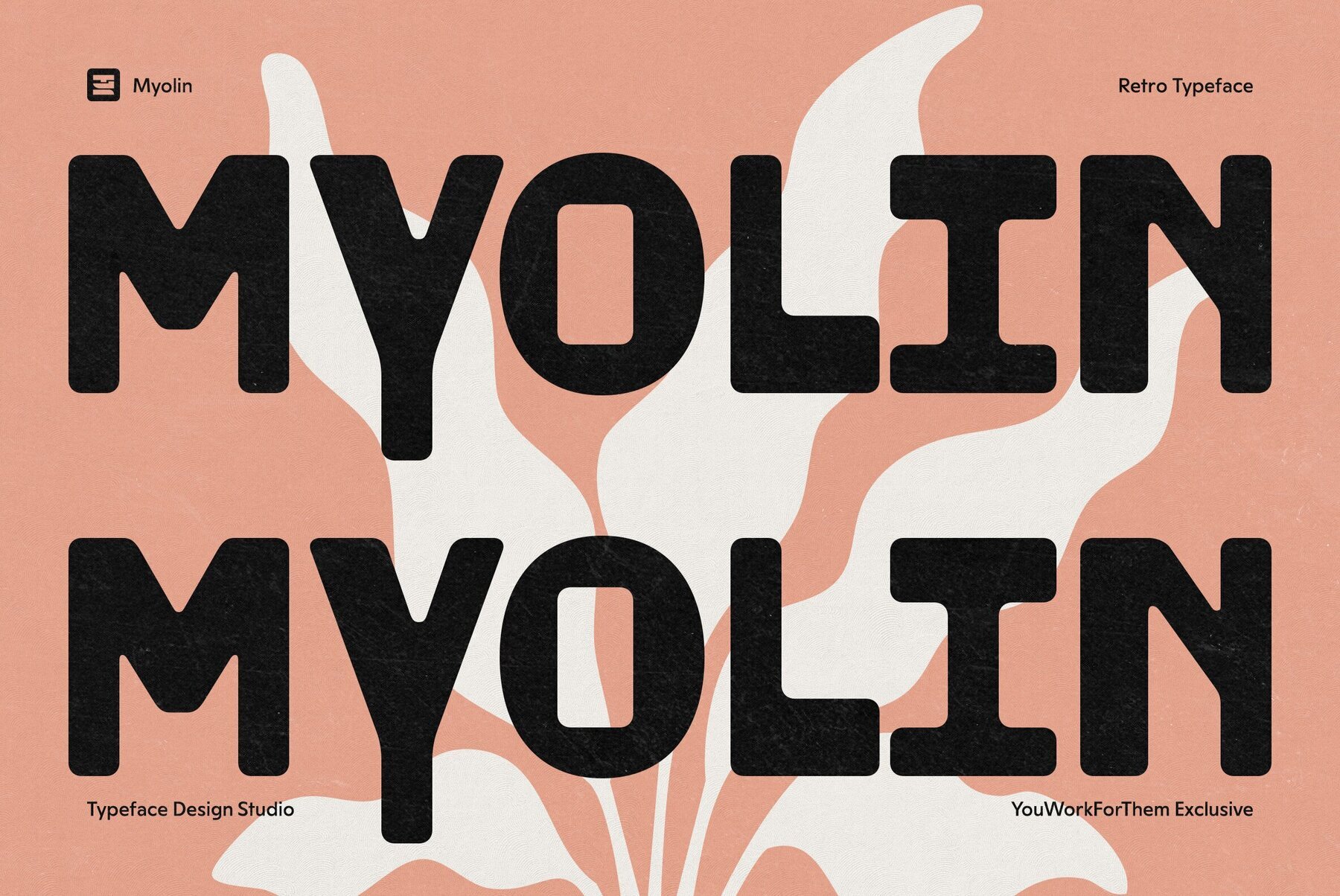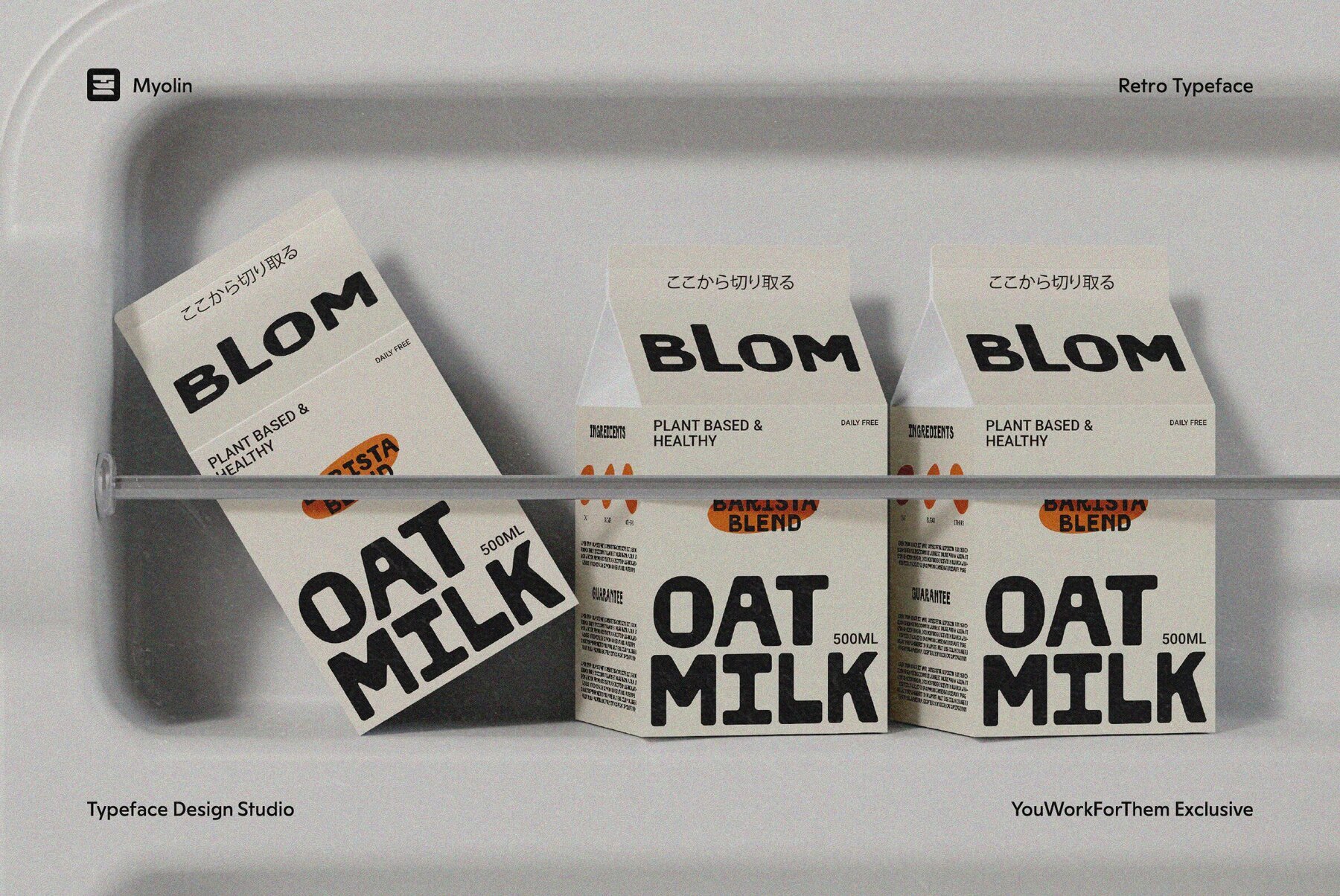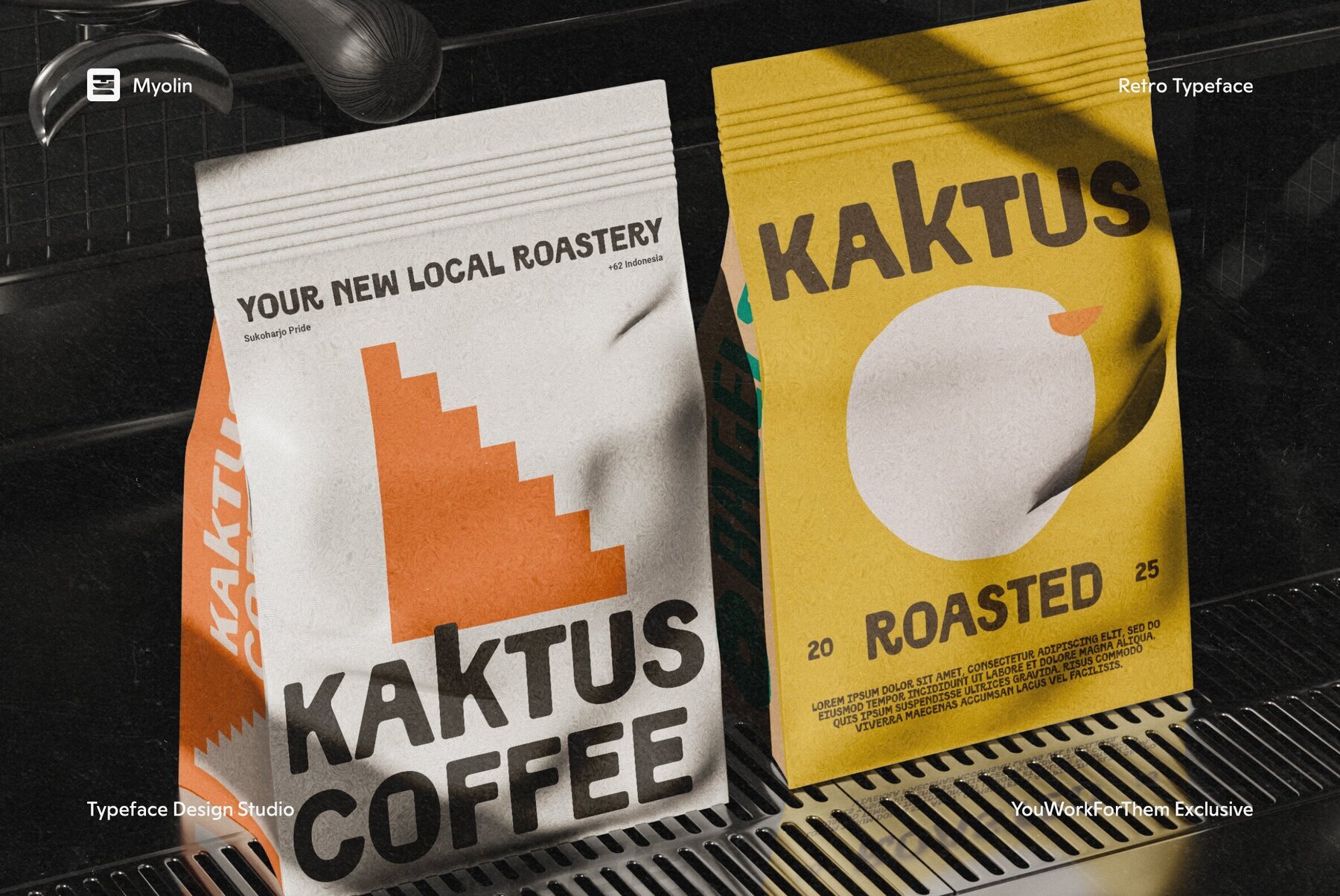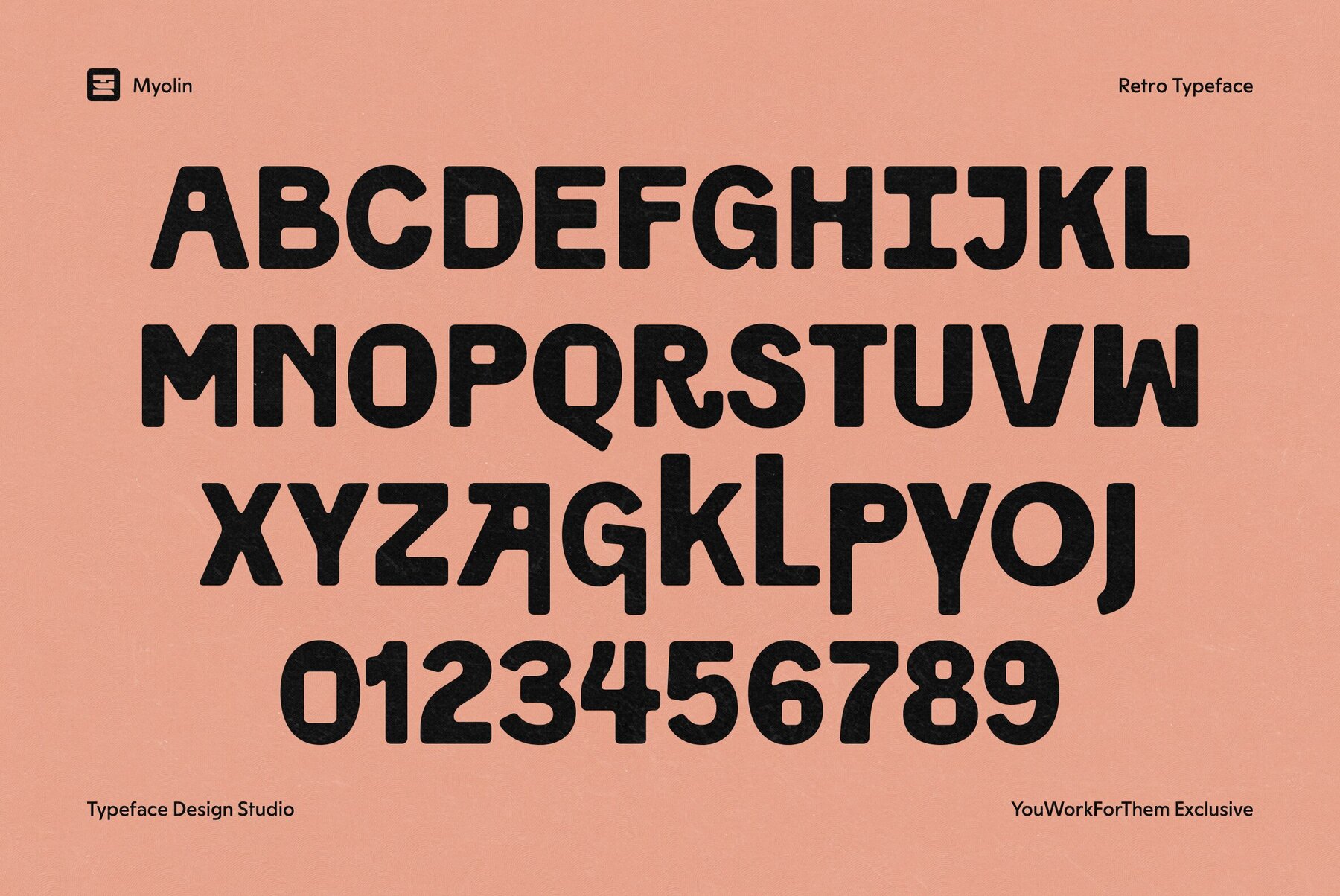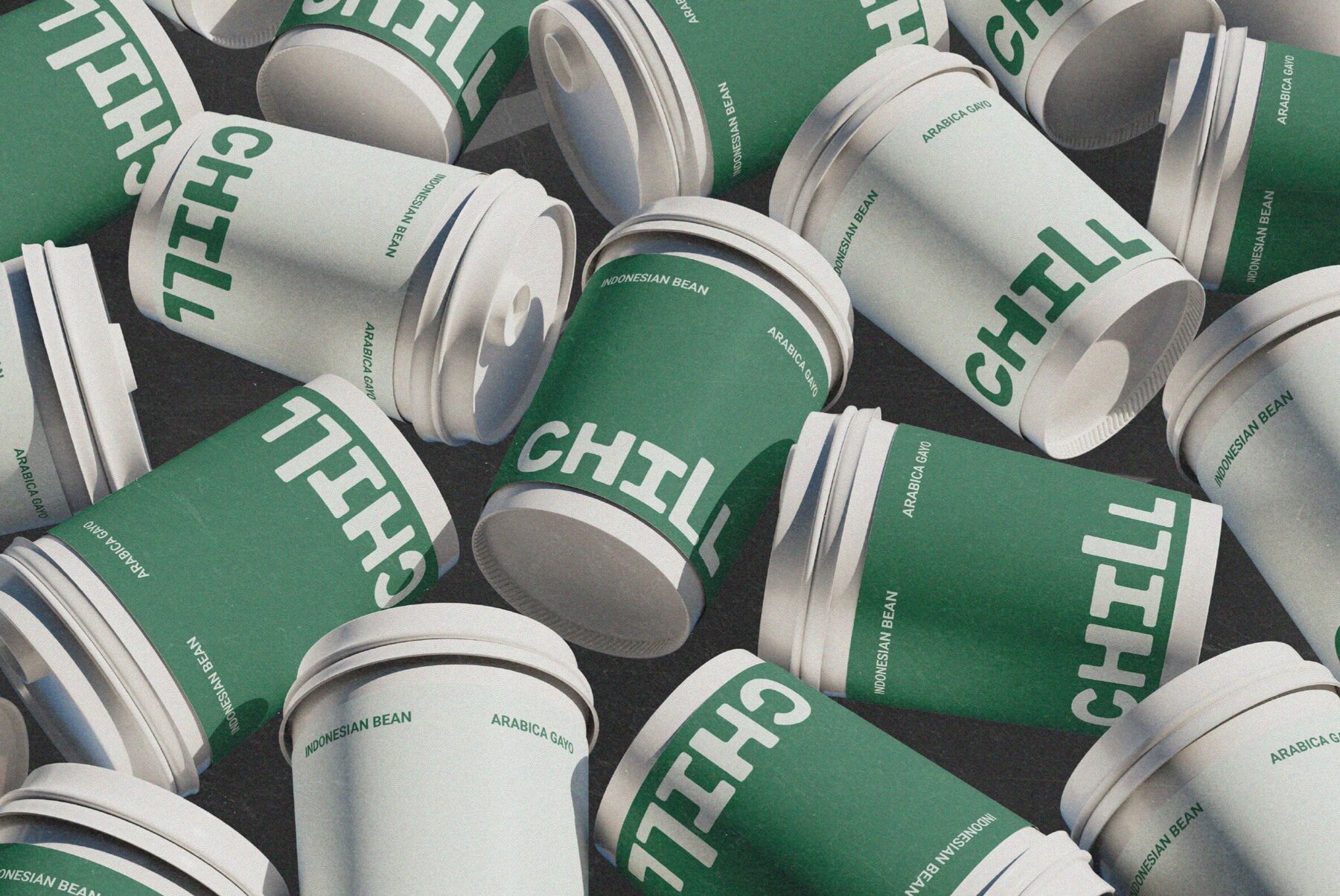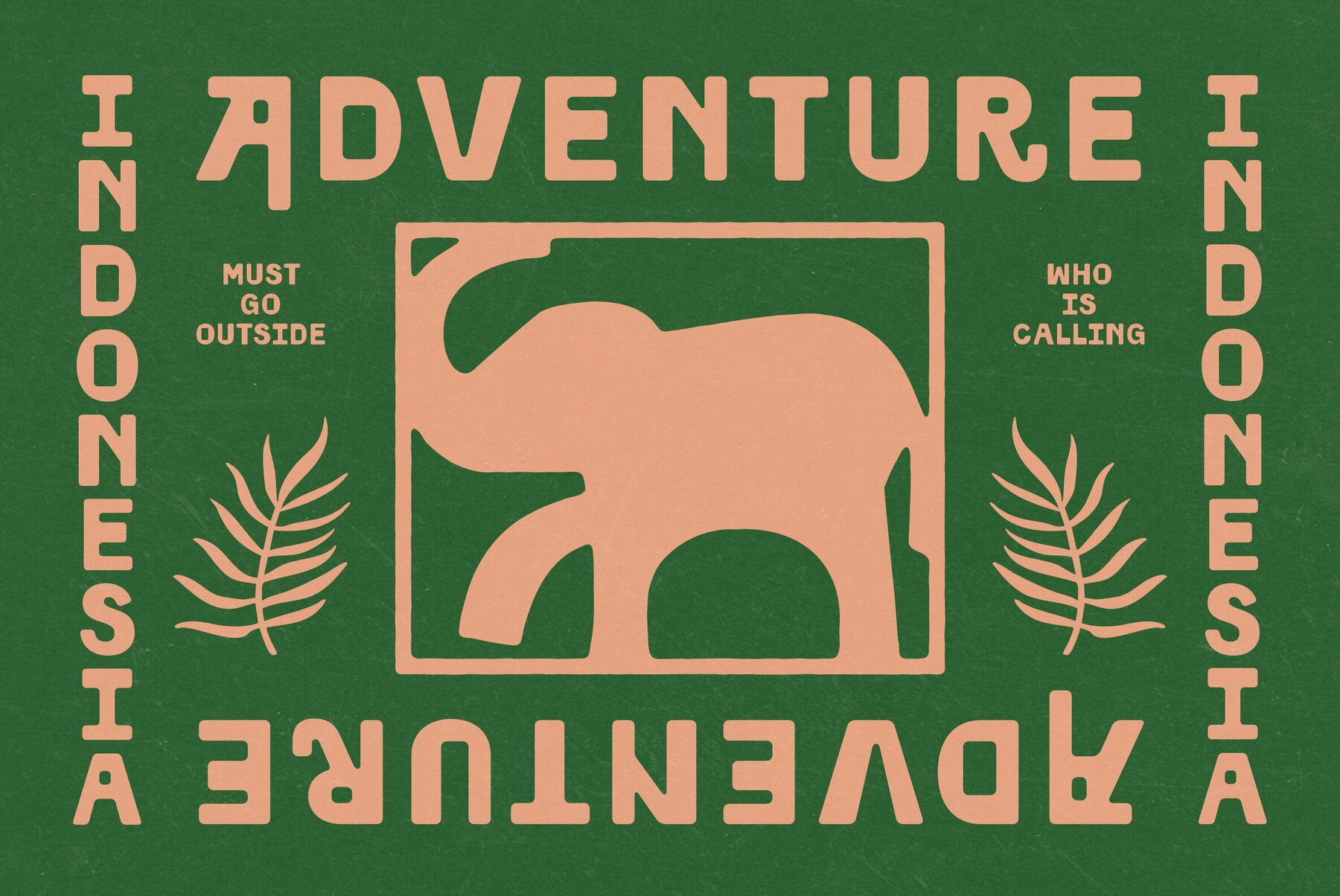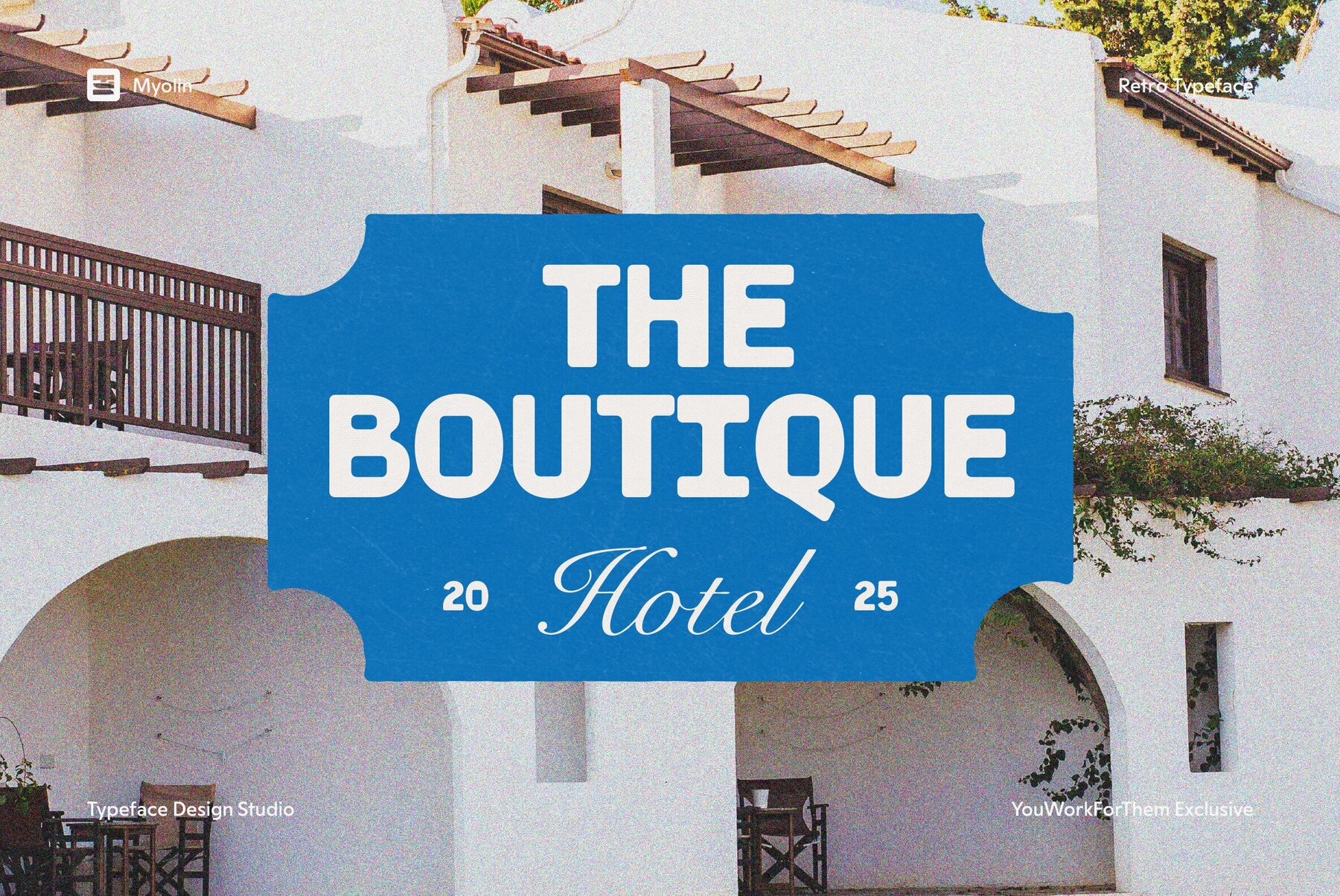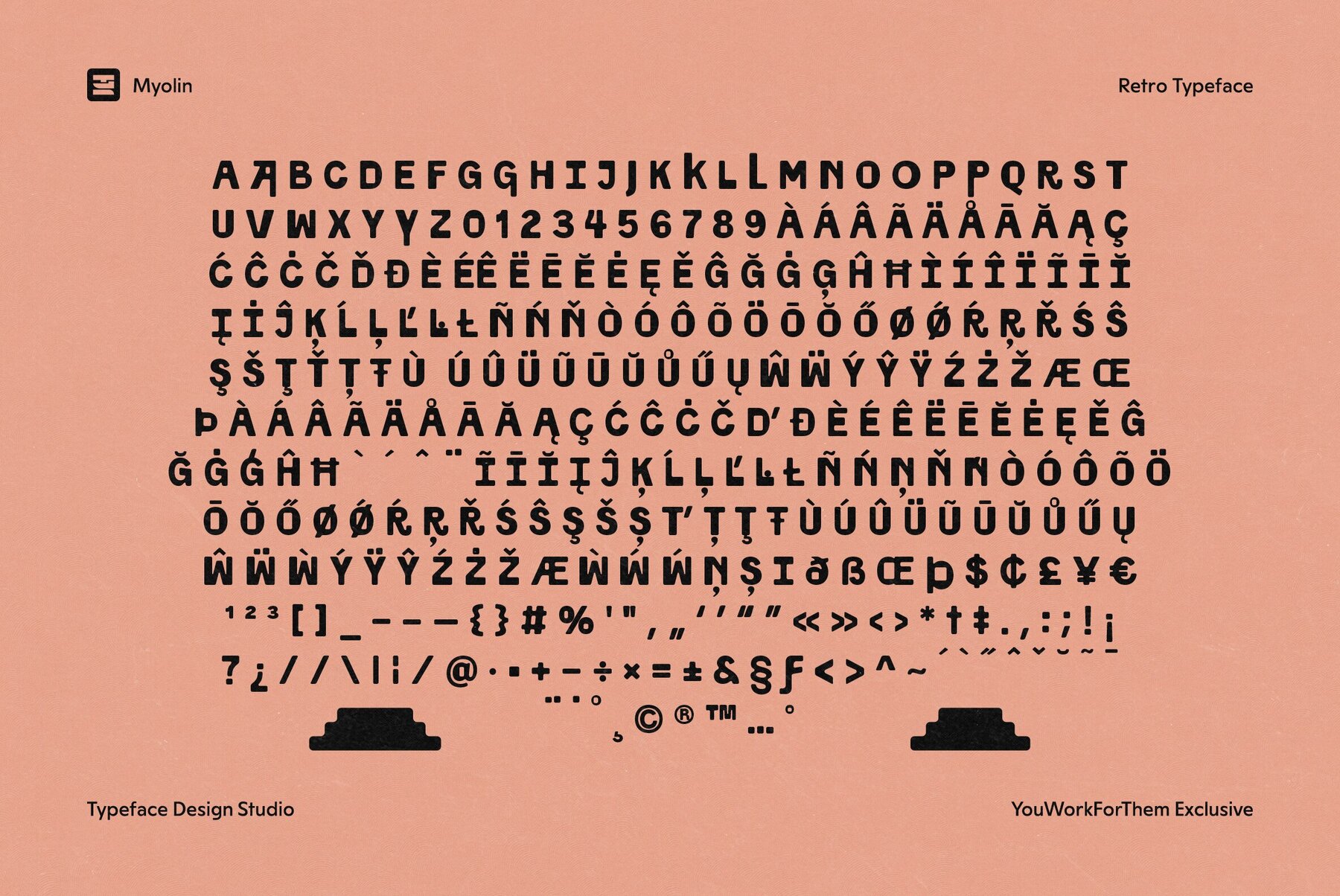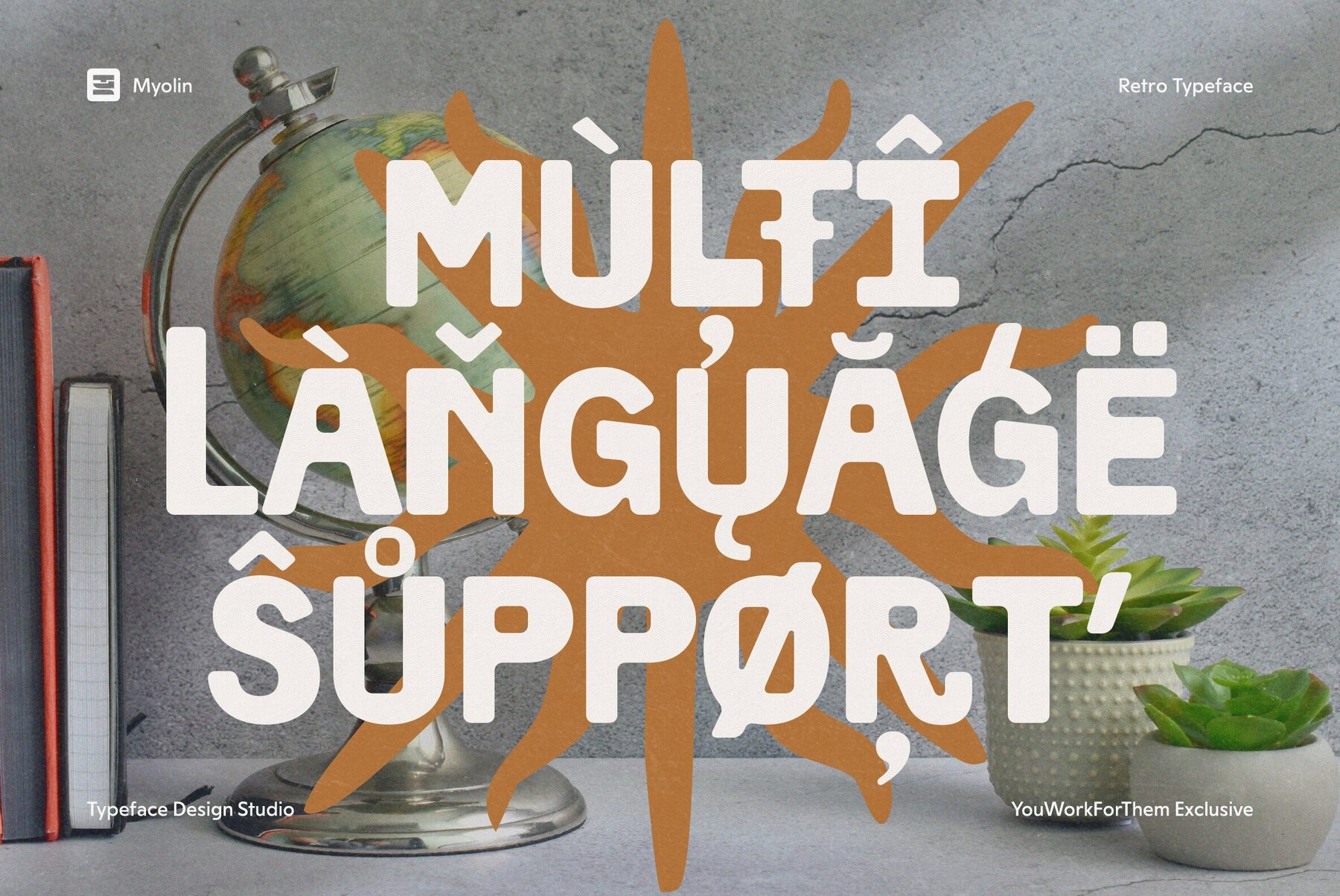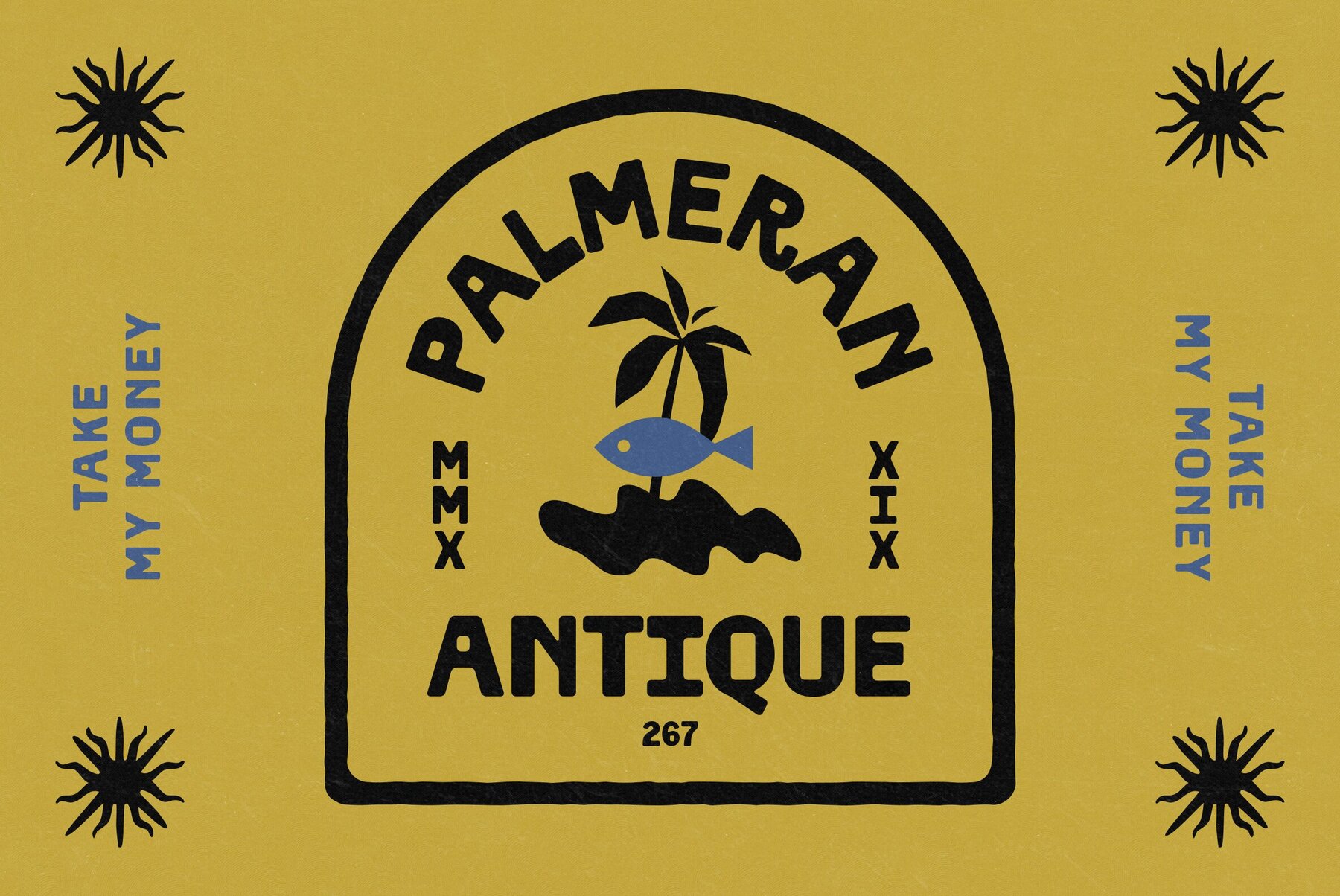
Myolin is a bold display typeface crafted for brands that want to speak in a friendly, confident tone. With soft curves, geometric construction, and playful proportions, it brings a warm visual rhythm that resonates in packaging, branding, and editorial headlines. This is a font that pairs perfectly with today’s growing interest in Mediterranean minimalism, beachside aesthetics, and lifestyle-centric design. Myolin’s charm lies in its subtle quirks. The letterforms are balanced yet expressive, giving it a distinctive identity that stands out in both digital and print. Whether you're working on oat milk cartons, artisan coffee packaging, sun-soaked travel posters, or skincare labels, Myolin adapts beautifully to projects that value clarity and warmth. With 360 glyphs, strong multilingual support, and PUA-encoded characters, Myolin is built for global use without compromising on personality. Its features include stylistic alternates, superscripts, localized forms, and ordinal support—ensuring typographic flexibility for everything from bold headlines to detailed product copy. 360 glyphs Language support: Basic Latin, Western European, Euro, Catalan, Baltic, Turkish, Central European, Romanian, Pan African Latin, Afrikaans OpenType features: Stylistic Alternates, Superscript, Localized Forms, Ordinals, Access All Alternates Myolin delivers a visual language that is approachable and fresh. For brands that want to feel sunlit, authentic, and design-conscious—this is a typeface that invites attention without trying too hard. Ideal for Instagram-era packaging and emerging wellness or lifestyle brands.Myolin: A Bold Display Font with Retro Warmth and Modern Confidence